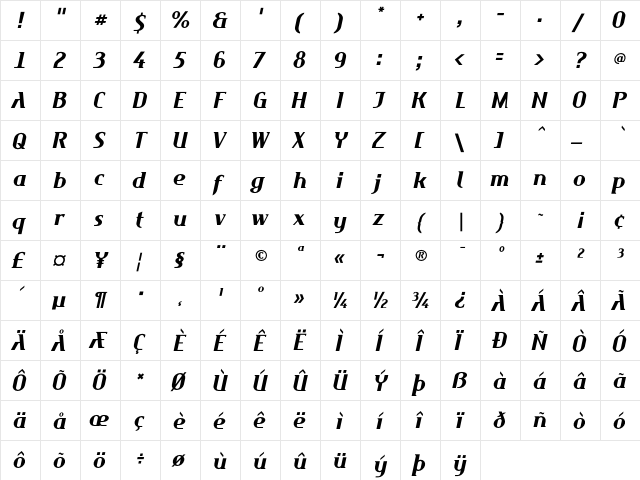
Maverick BoldItalic
Design Context for Maverick Typeface
Maverick is a composed and adaptable typeface that performs quietly and consistently across a wide range of design contexts. The slanted form adds forward momentum and visual energy. The heavy weight commands attention and anchors typographic hierarchies.
Pro Tip: Try Maverick for annotation and caption copy alongside an upright companion — the contrast in angle creates a dynamic but ordered typographic system.